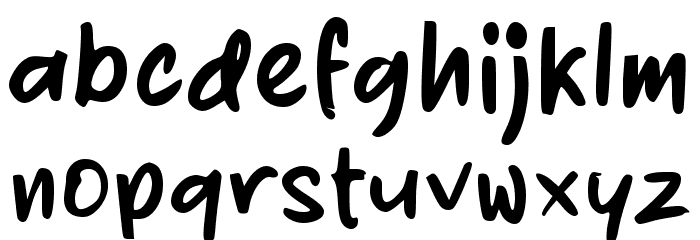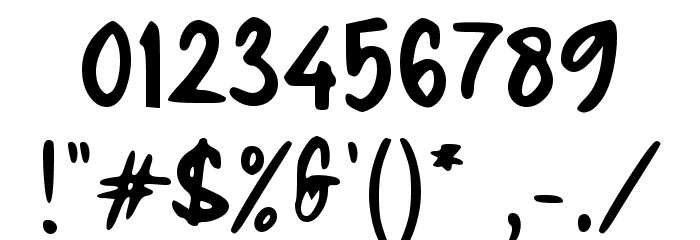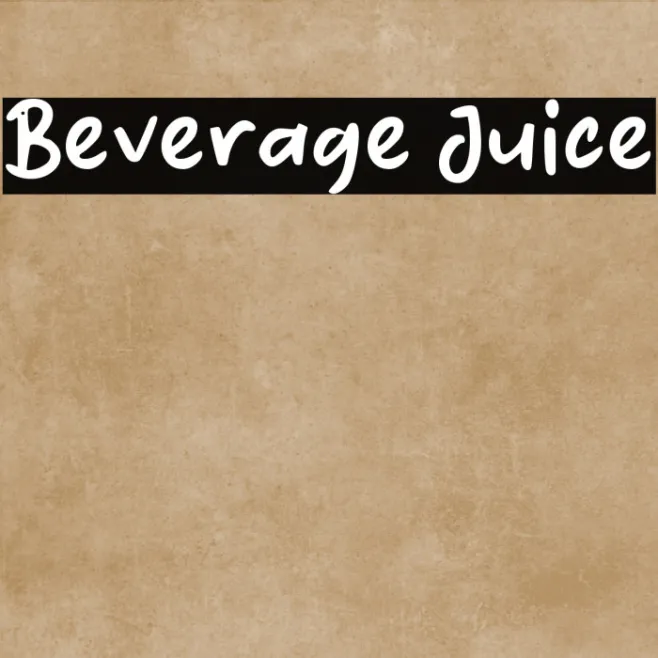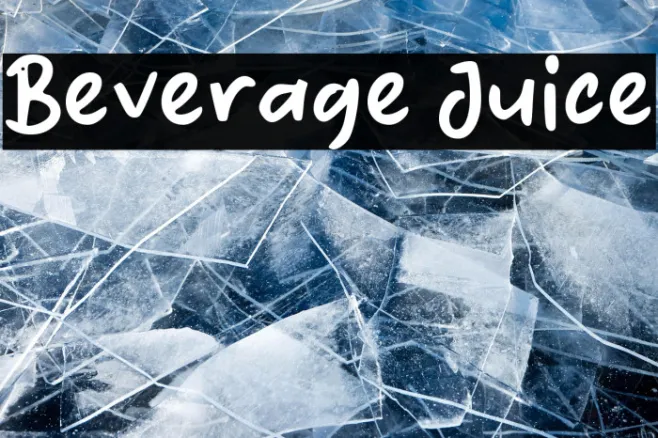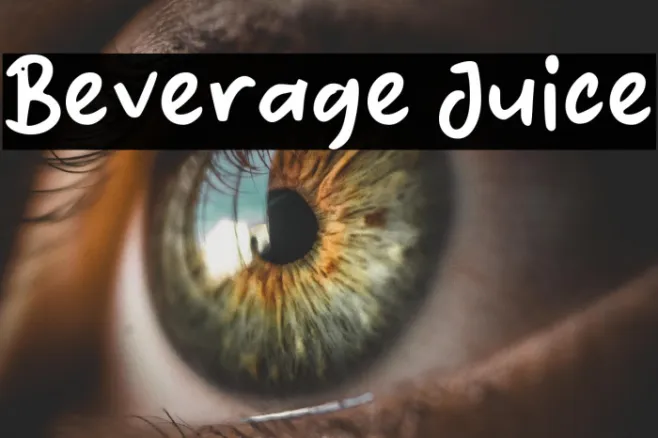
Beverage Juice Font
This playful and energetic font features bold, rounded characters with a hand-drawn appearance. The letters have a casual, friendly vibe, making them ideal for projects that require a personal touch. The strokes are thick and consistent, providing a strong visual impact. The font maintains a uniform width across characters, with slightly irregular edges that enhance its informal style. The numerals and special characters are crafted with the same playful aesthetic, ensuring cohesion throughout. This font is perfect for designs that aim to be approachable and lively.
A bold, hand-drawn font with a playful and energetic style.
- Proposed Projects: Ideal for children's books, playful branding, casual invitations, and creative posters.
- Overall Style: Playful